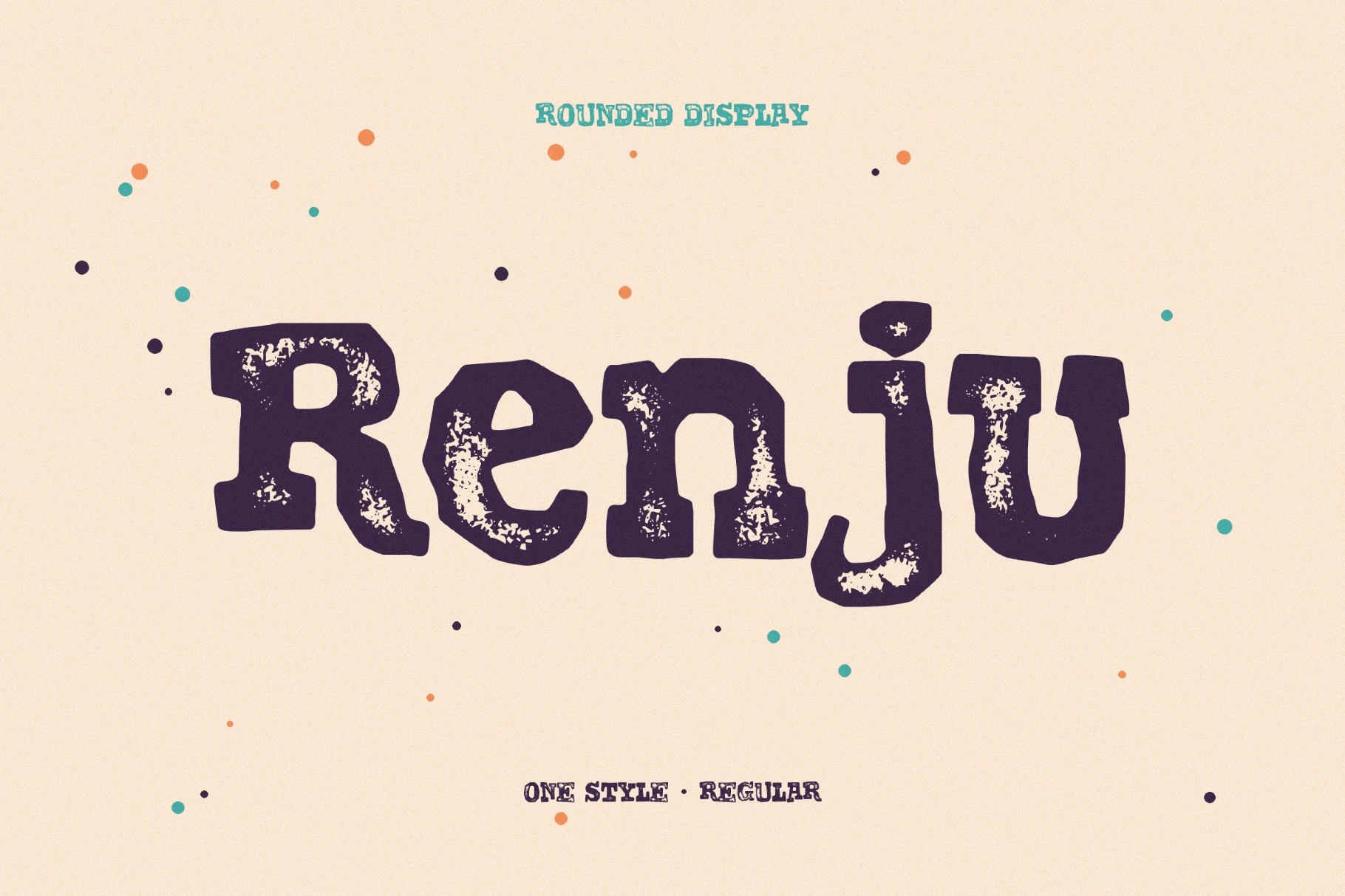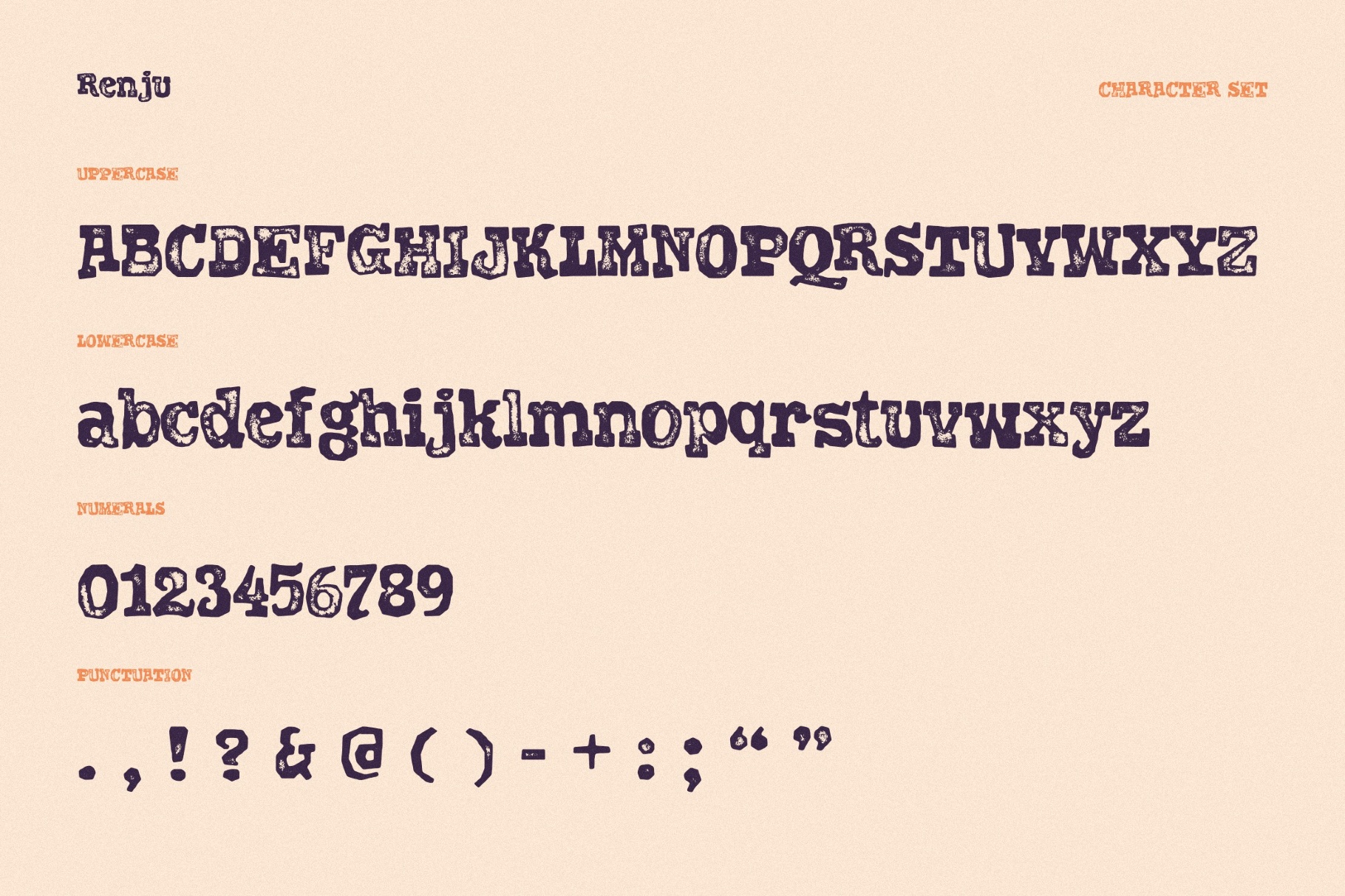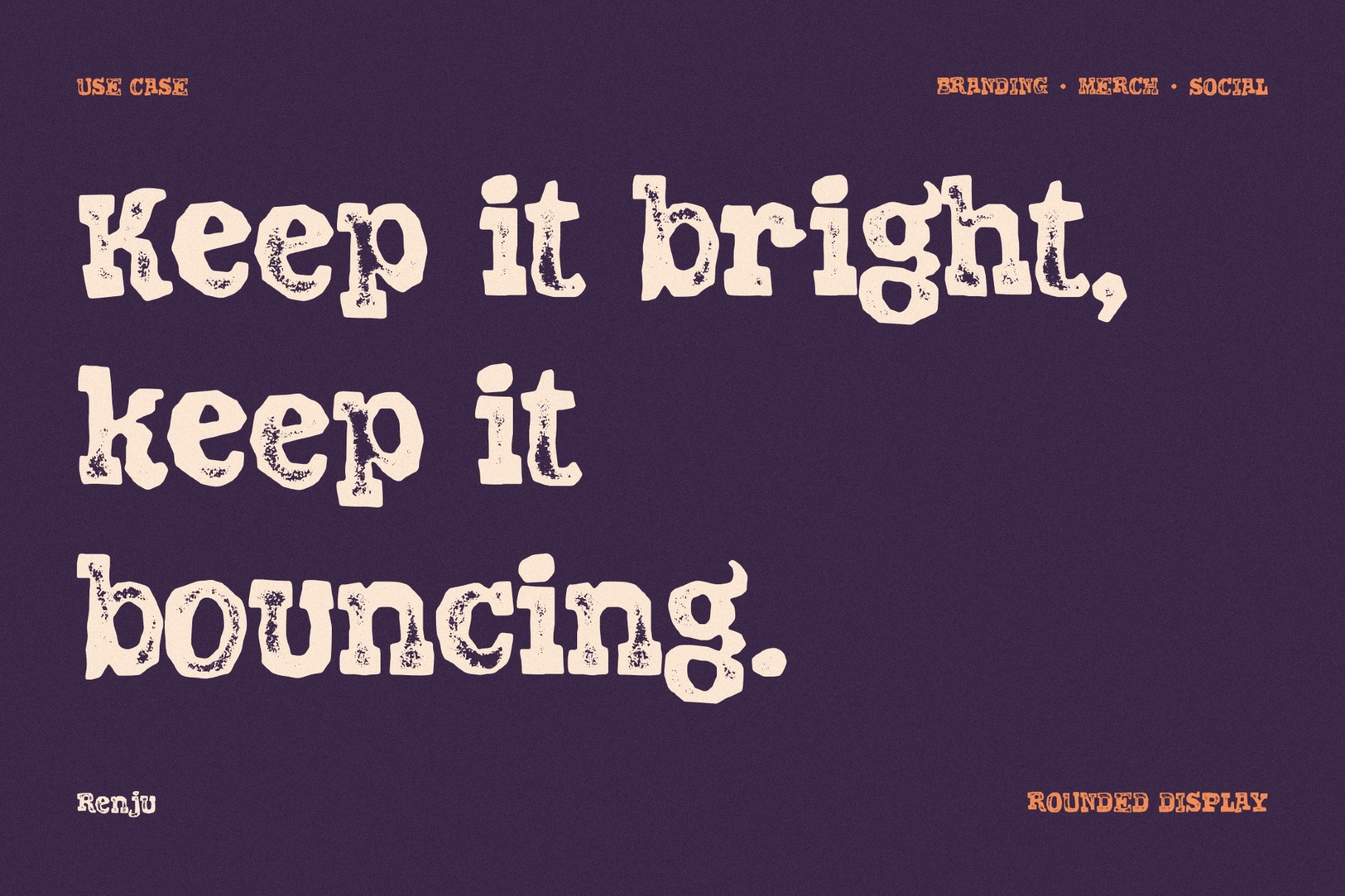
Renju Grunge-Style Font
Renju
Renju delivers the rough vintage charm pulled from old comics, crime paperbacks, and low-budget horror titles. This bold slab serif with soft, swollen contours, chipped surfaces, and rough printed grainy works well for mystery branding, noir-inspired book covers, band posters, retro packaging, Halloween graphics, magazine mastheads, craft labels, and social media artwork.
- uppercase and lowercase letters;
- numbers, punctuation, and symbols;
- multilingual support across extended Latin, Cyrillic, Hiragana, Katakana, and Greek scripts;
- ligatures.